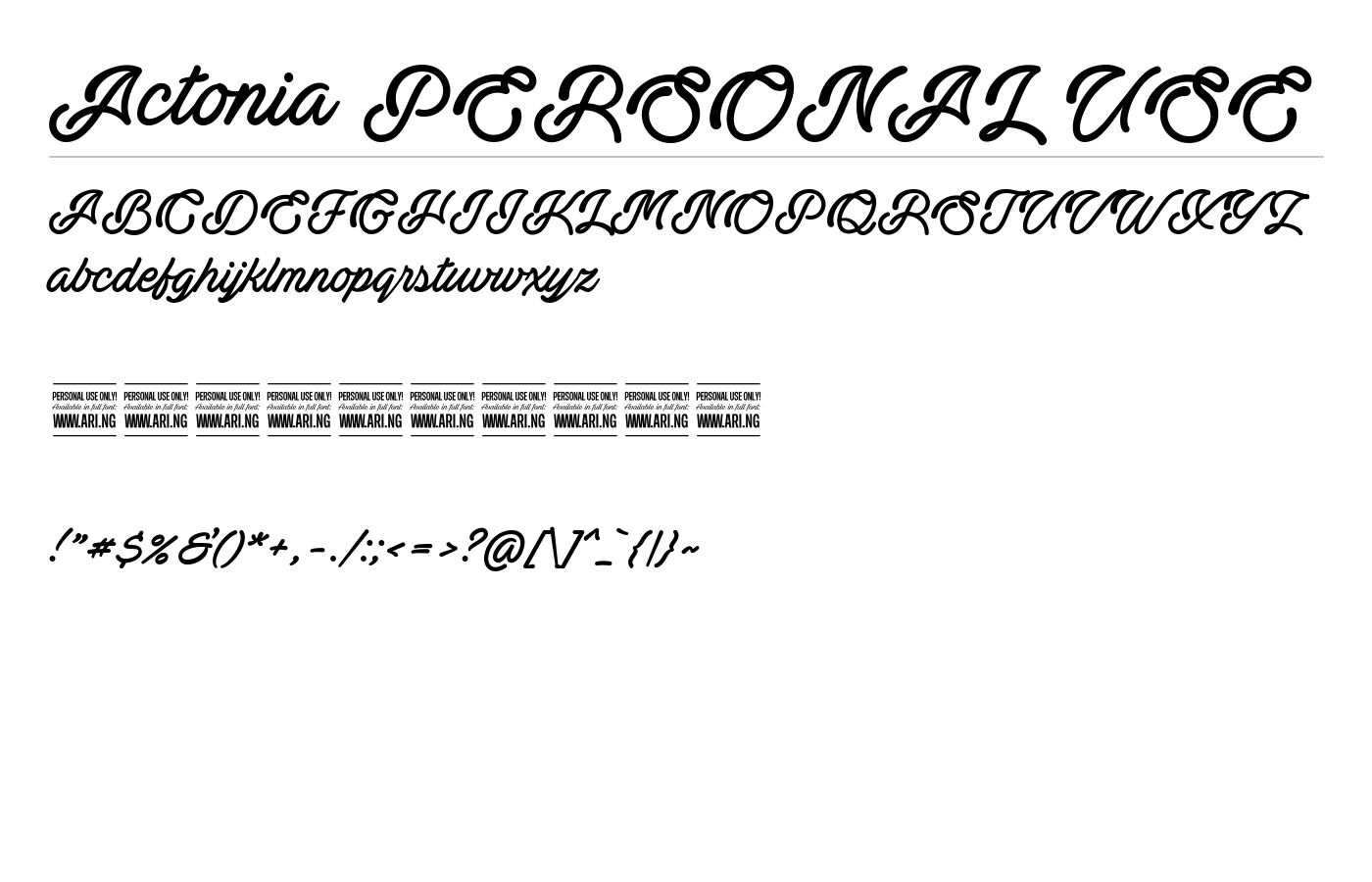
Actonia PERSONAL USE is a graceful script font with elegant, flowing letterforms that evoke a handwritten feel. Its smooth curves and moderate contrast make it well-suited for stylish branding, invitations, and feminine design projects where a touch of charm and sophistication is desired. This font works best in headlines or decorative text to add personality and warmth.
Actonia PERSONAL USE Font
About Actonia PERSONAL USE Font